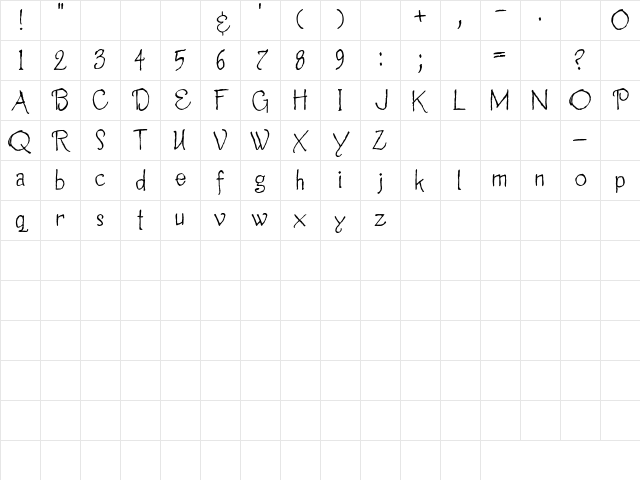
2Peas Ragtag Regular Free Font
2Peas Ragtag Regular
2Peas Ragtag Family
2Peas Ragtag Regular
Design Context for 2Peas Ragtag
2Peas Ragtag is a composed and adaptable typeface that performs quietly and consistently across a wide range of design contexts.